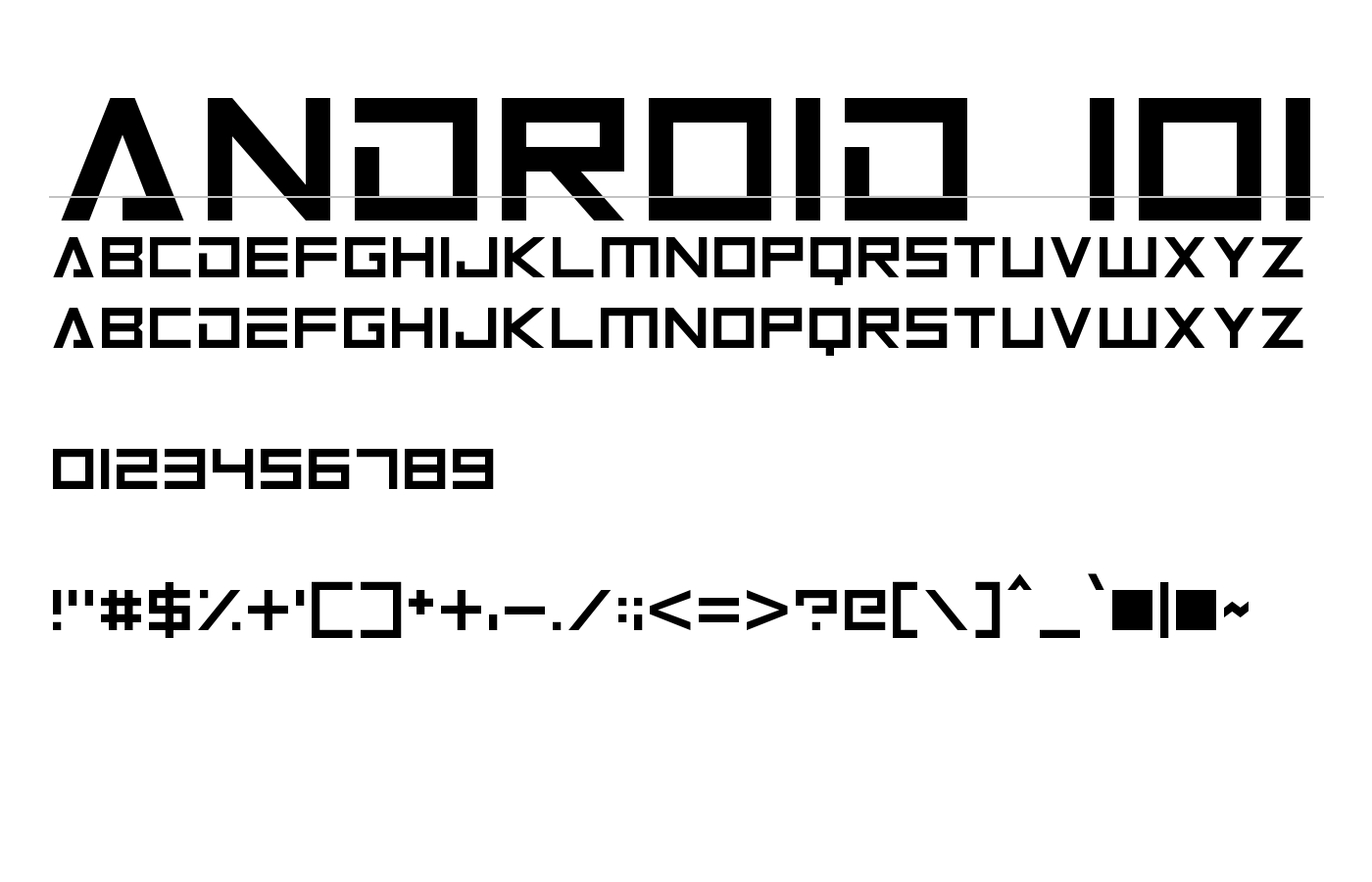
Android 101 is a bold, geometric sans serif font with a futuristic and tech-inspired design. Its sharp angles and blocky letterforms give it a strong, digital feel, making it ideal for branding and projects related to technology, gaming, and science fiction. This font works best for headlines, logos, and display use where a modern, innovative vibe is desired.
Android 101 Font
About Android 101 Font
| Font family | Android 101 Font |
| Designer | Darrell Flood |